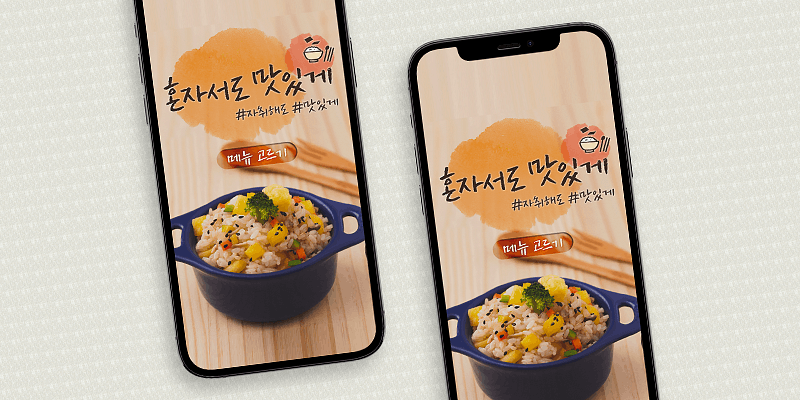
Sandoll BaikzongYulPil is written with a colored pencil, resulting in a font that most resembles Director Baik’s actual handwriting.
The font was created based on the handwriting of movie and commercial director Baik Jong Yul. The font minimizes any discomfort of the user by addressing the issue of the text appearing too heavy if the colored pencil’s texture is too emphasized.